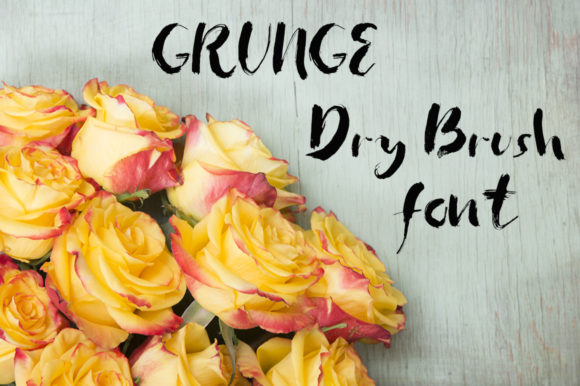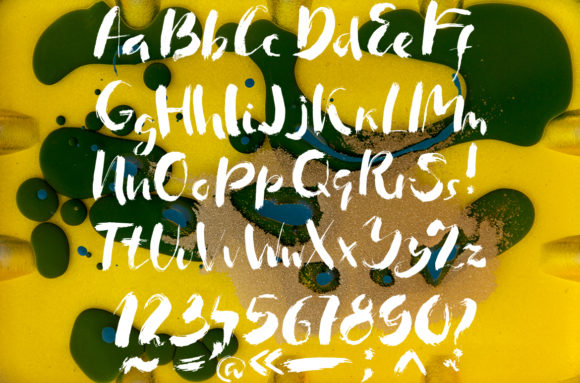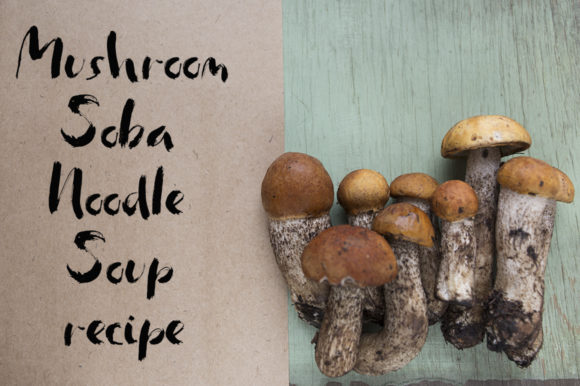
Dry Brush Font
About Dry Brush Font
Dry Brush is a cool and unique brushed handwritten font. No matter the topic, this font will be an incredibly asset to your fonts’ library, as it has the potential to elevate any creation.